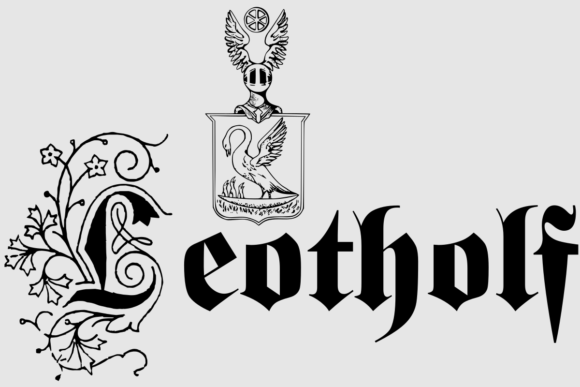
Introducing Leotholf Font, the epitome of boldness and thickness, ready to transform your designs into mesmerizing works of art. This blackletter font, meticulously crafted by Intellecta Design, is not just a font; it's an experience that captivates and allures.
Dive into the world of Leotholf, where every letter exudes confidence and strength. Its bold strokes command attention, while its thick lines create a sense of depth and dimension that is simply irresistible. Unleash your creativity and let Leotholf elevate your projects to new heights of sophistication and elegance.
With Leotholf, you'll discover a font that's not just versatile, but also incredibly user-friendly. Its PUA encoding ensures effortless access to all glyphs and swashes, empowering you to add intricate details and flourishes to your designs with unmatched ease.
Embrace the beauty of Leotholf and watch as your projects come alive with a touch of timeless charm. Whether you're a seasoned designer or just starting your creative journey, Leotholf is the perfect companion to help you achieve stunning results.